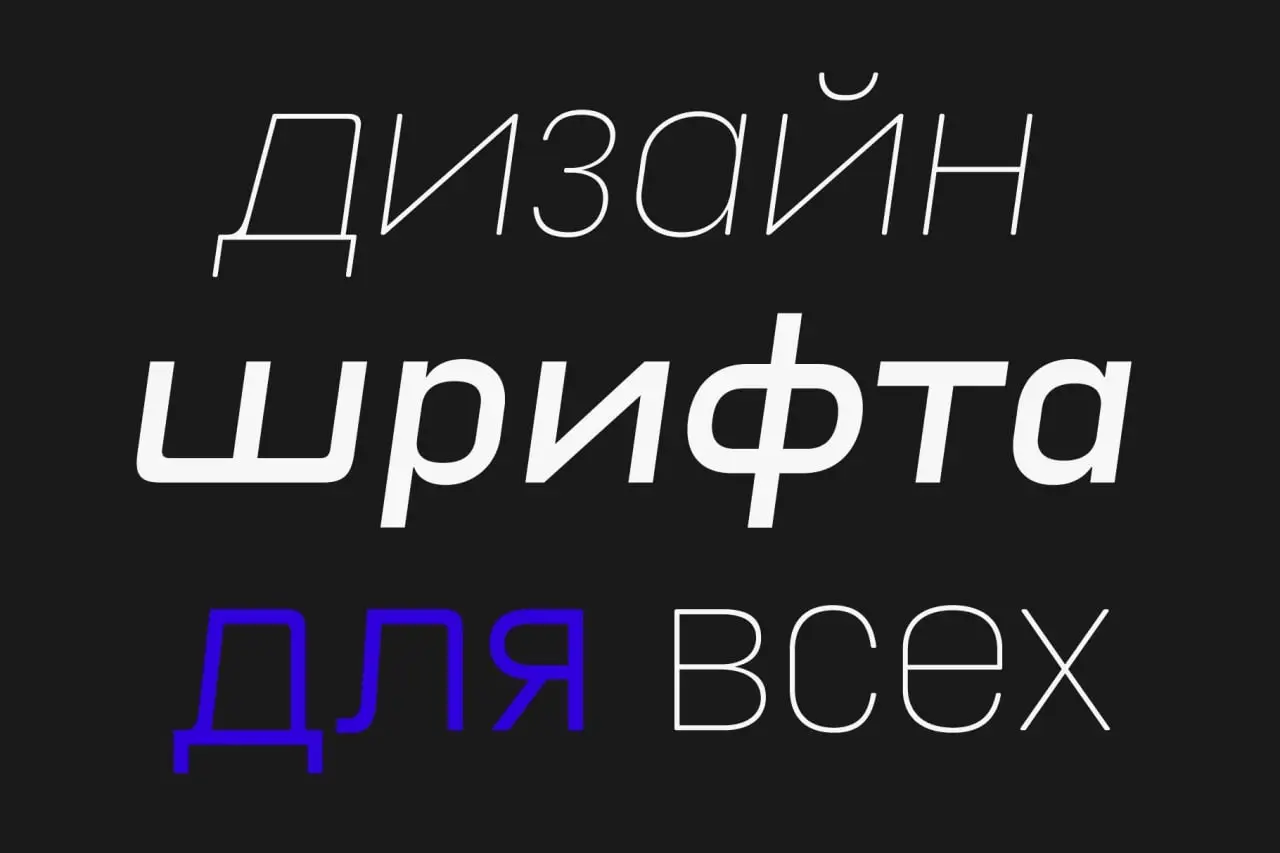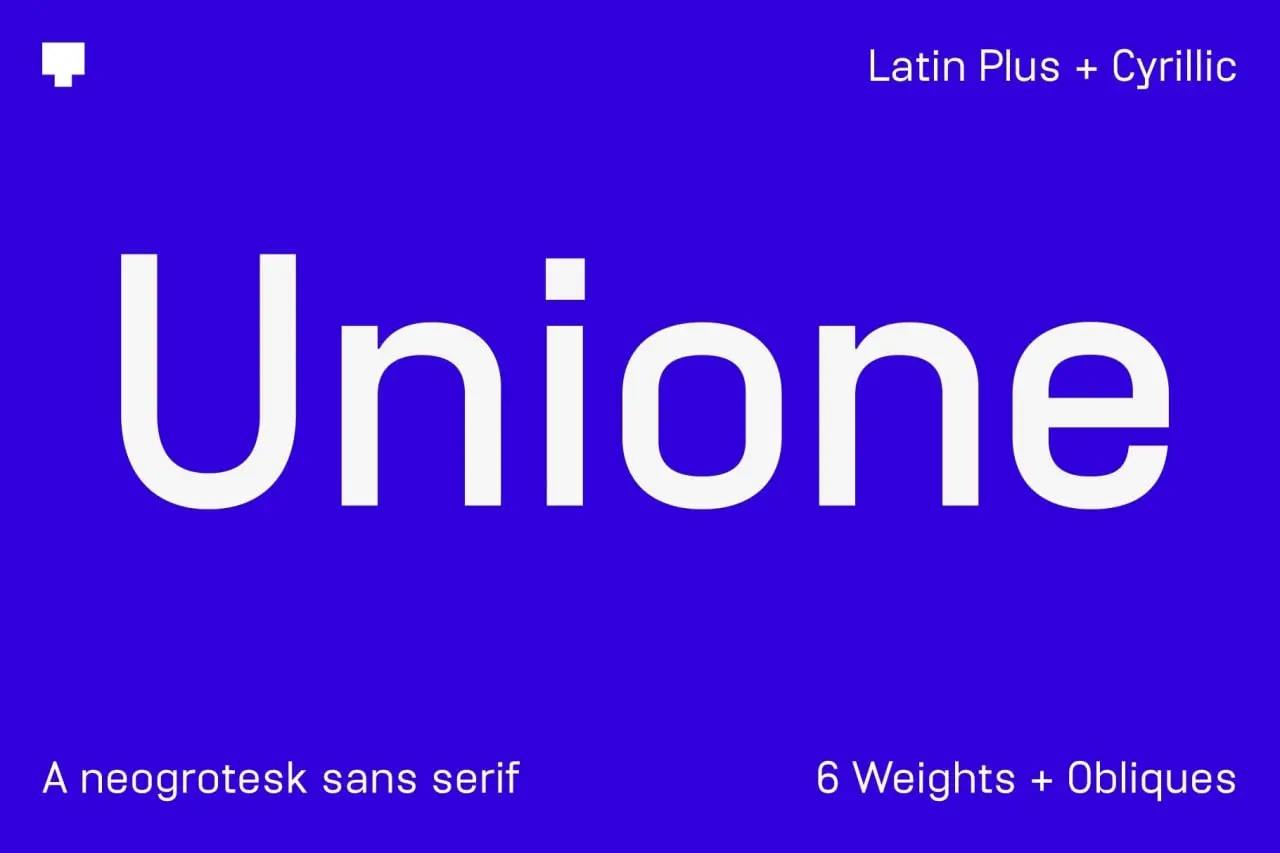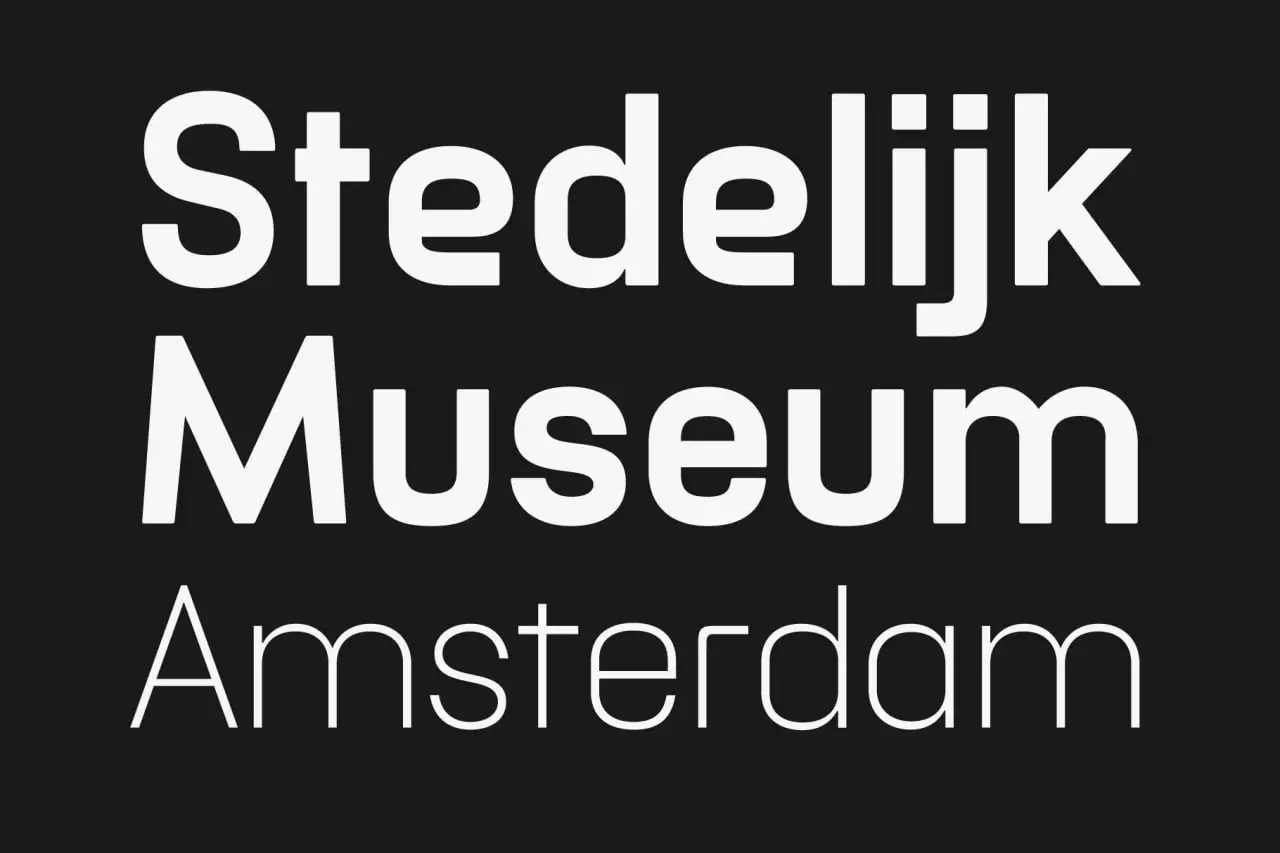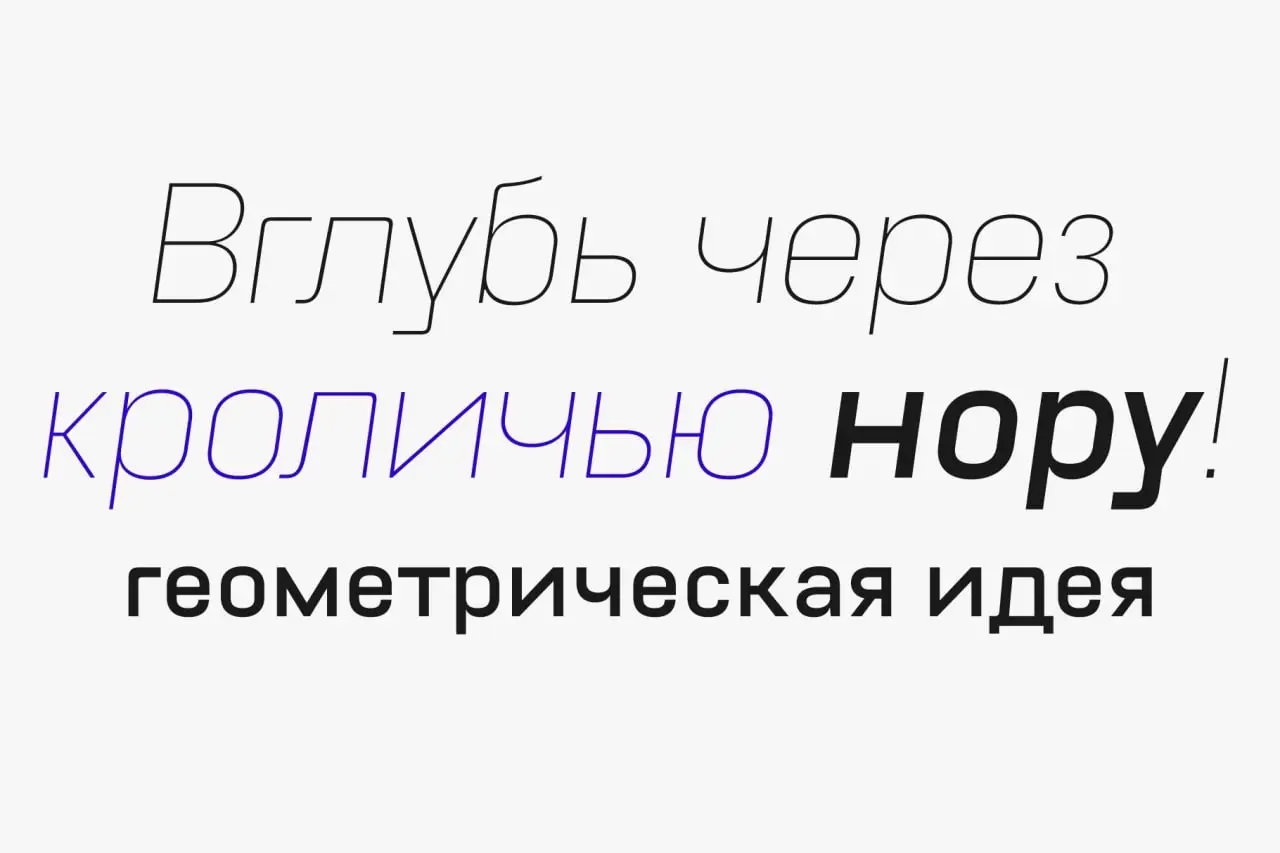
- Elegant Cyrillic characters
- Multiple weights for flexibility
- Ideal for both print and digital applications
Unione Font Cyrillic features a clean and modern design, making it suitable for branding, logos, web design, and user interfaces. The diverse weights allow for creative expression while maintaining readability.
- Use bold weights for headlines and titles.
- Opt for lighter weights for body text to enhance readability.
- Pair with complementary fonts for a polished look.